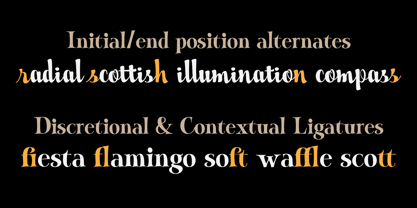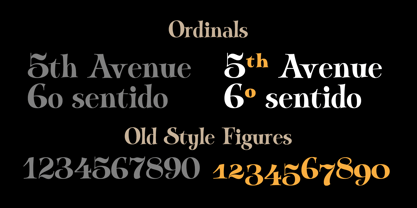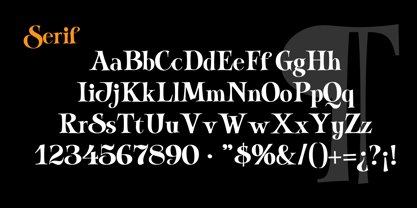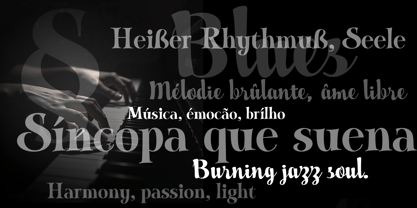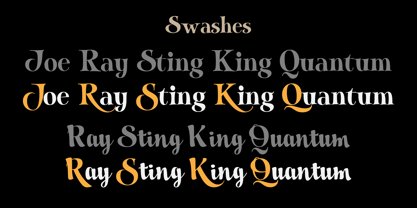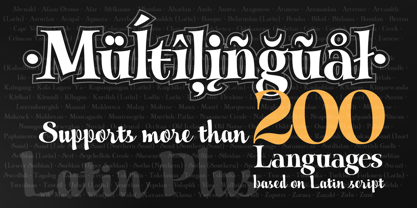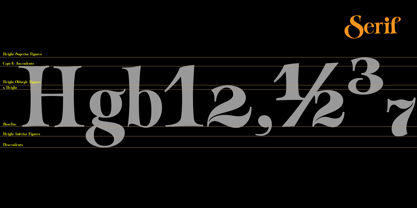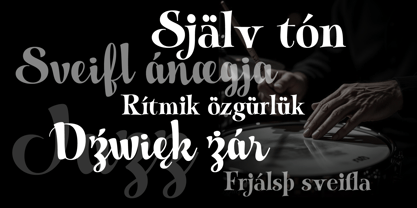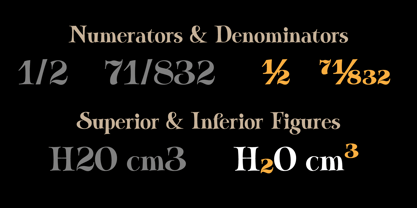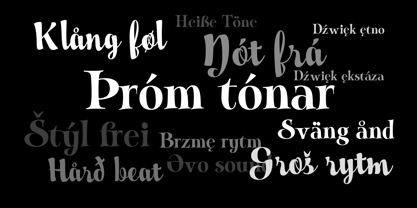
Jam Session
by JVB Fonts
The Jam Session Font Family was designed by John Vargas Beltrán and published by JVB Fonts. Jam Session contains 2 styles and family package options. More about this family
Jam Session – Script & Serif Font Duo Experience the vibrant energy of Jam Session, a unique type family inspired by the improvisational spirit of jazz. This font duo, born from a creative lettering exercise at FADU–UBA (Buenos Aires, Argentina · 2015), features two complementary styles: a lively Script and a playful Serif, designed to infuse your projects with spontaneity and rhythm. Jam Session Script The Script style embodies the essence of natural handwriting and modern lettering. With smooth connections, expressive swashes, and contextual alternates, it mimics the fluidity of real pen strokes. The dynamic adaptability of stylistic sets, initial and terminal forms, and positional alternates ensures that every word feels handcrafted and unique, perfect for adding a personal touch to your designs. Jam Session Serif In contrast, Jam Session Serif breaks away from traditional rigid forms, embracing a casual and animated personality. Its dynamic, slightly irregular shapes convey movement, reminiscent of notes bouncing in a lively jam session. Enhanced with ligatures and stylistic variations, this style is ideal for display use, headlines, logos, and any project that seeks a fresh, energetic vibe. OpenType Features - Contextual Alternates (calt): for a natural flow in Script. - Stylistic Sets (ss01 & ss02): offering creative variations. - Swashes & Terminal Forms: enhancing the handwritten feel. - Ligatures: adding rhythm and character to both styles. - Multilingual Support: extended Latin coverage for international use. Versatility in Use Designed for creative freedom, Jam Session shines across various applications including branding, packaging, album covers, posters, social media graphics, and editorial layouts. Its dual nature—combining serif structure with script spontaneity—allows designers to blend or separate the styles to set the desired rhythm in their work. Why Jam Session Like jazz, Jam Session thrives on dialogue, rhythm, and improvisation. Each letter carries its own cadence, yet together they create a harmonious movement. Rooted in lettering and shaped by academic exploration, Jam Session is a vibrant addition to any designer’s toolkit. Let your design swing with the dynamic flair of Jam Session!